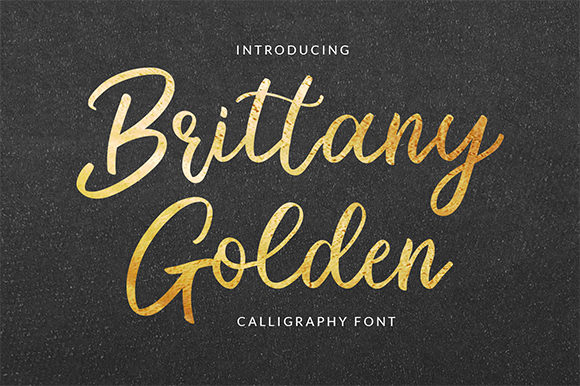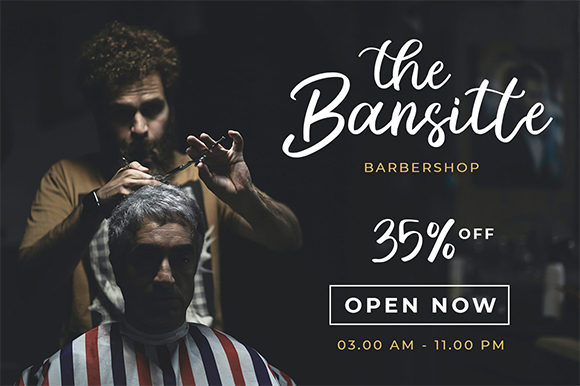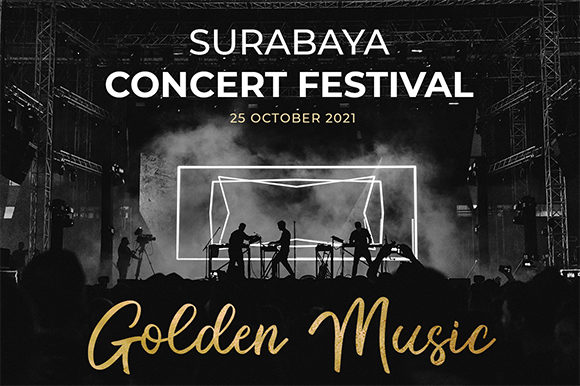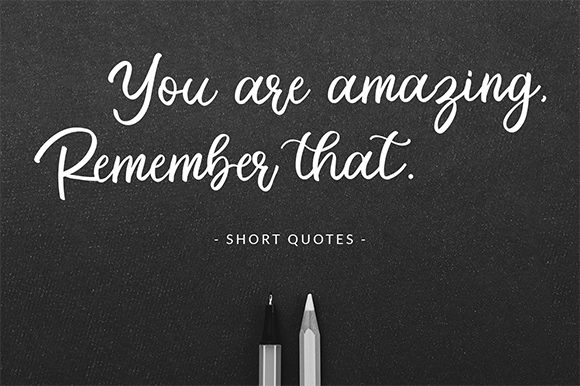
Brittany Golden Font
About the Brittany Golden Font
Let us introduce you to Brittany Golden Font, where timeless design meets modern craftsmanship. Brittany Golden is an unique handwritten font. Whether you’re using it for crafting, digital designing, presentations, or greeting card making, it’s perfect!
Fall in love with its incredibly versatile style and use it to create spectacular designs!
Brittany Golden’s casual, yet elegant style makes it ideal for headlines, short text blocks on invitations or social media posts, and logos requiring a touch of handwritten charm. It works exceptionally well for branding projects targeting a sophisticated yet approachable audience, such as boutiques, cafes, or lifestyle brands. Avoid using it for body text or lengthy paragraphs; its handwritten nature reduces readability at smaller sizes.
Pairing Brittany Golden with a clean sans-serif like Montserrat or Lato provides a strong contrast and enhances readability. For a more luxurious feel, consider pairing it with a delicate serif font such as Playfair Display. Conversely, a geometric sans-serif like Futura would create a modern juxtaposition.
The font projects a friendly, approachable, and slightly whimsical personality, making it unsuitable for projects requiring a strictly formal or serious tone.
Brittany Golden Font Usage Examples
Brittany Golden Font Example